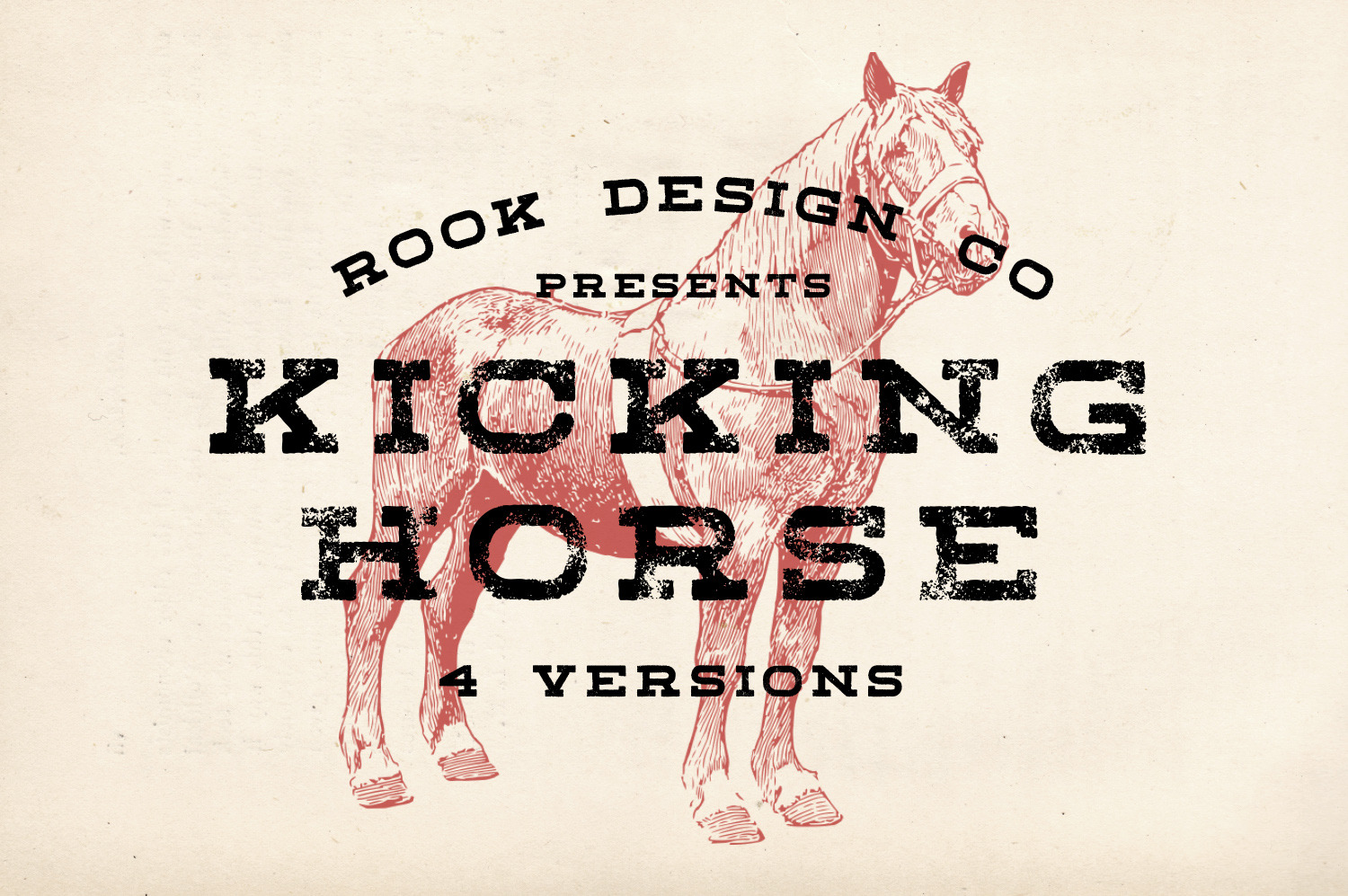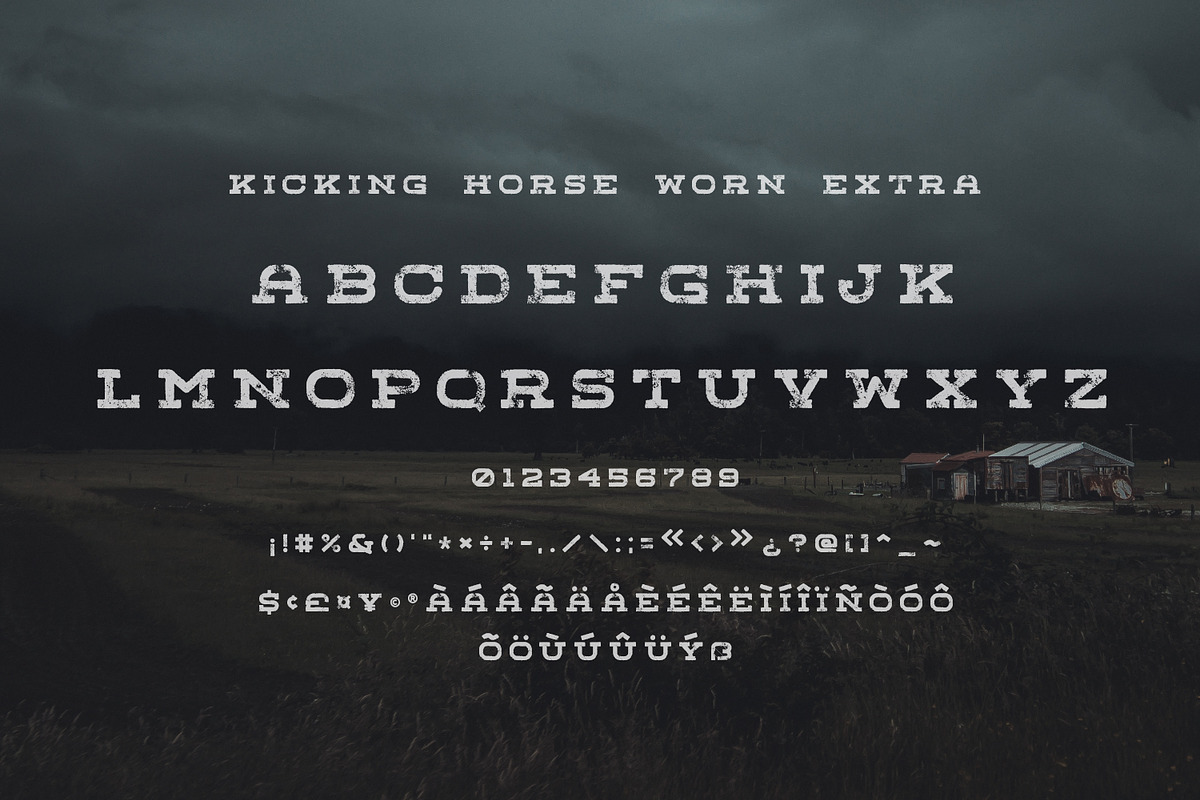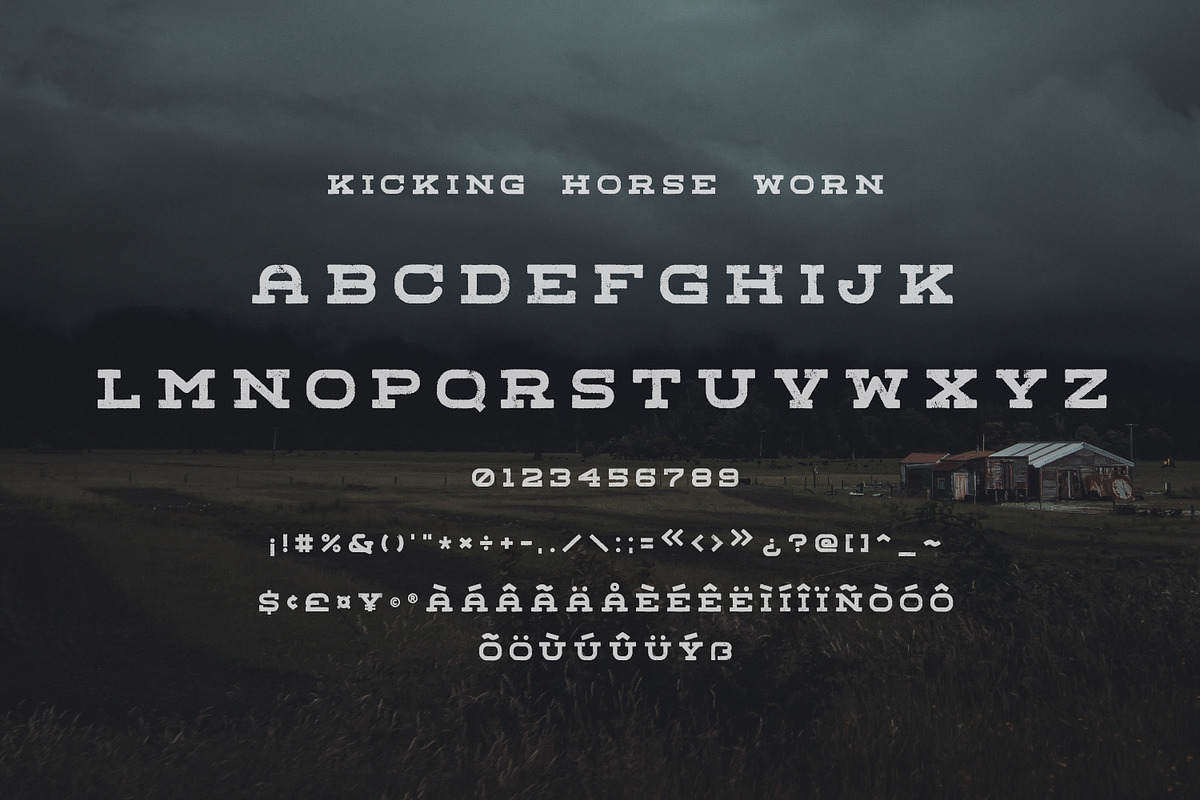
Kicking Horse - 4 Font Family
Kicking Horse is a family of FOUR slab serif fonts designed with a vintage print look in mind. Rounded edges and textures were added in to give a weathered, western vibe. Kicking Horse works great for logos, text blocks and everything in between. The characters in Kicking Horse are wider than your average font, which is great for a well rounded font arsenal.
Kicking Horse - Rounded
Kicking Horse - Grunge
Kicking Horse - Worn
Kicking Horse - Worn Extra
Language Support - We've added in a great deal of extra characters to support many different languages.